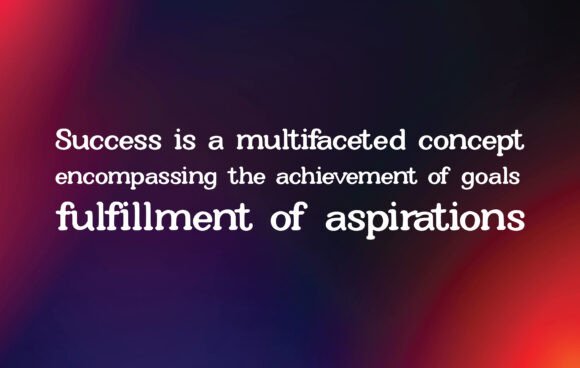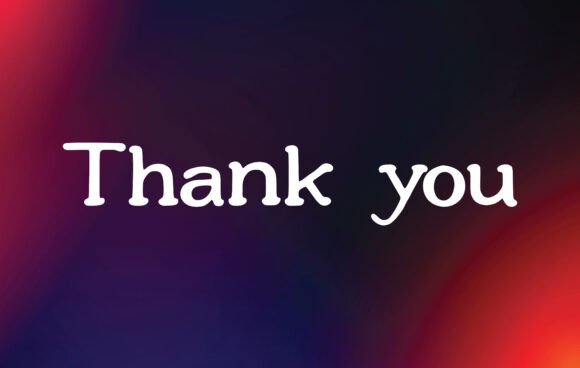
Introduction to Jimmy Font
Jimmy is a lovely and beautiful handwritten font.
Key Features of Jimmy Font
Why Choose Jimmy Font?
Jimmy Font offers exceptional quality and versatility, making it a valuable addition to your design toolkit. Whether you’re creating for personal projects or commercial use, Jimmy Font delivers professional results.